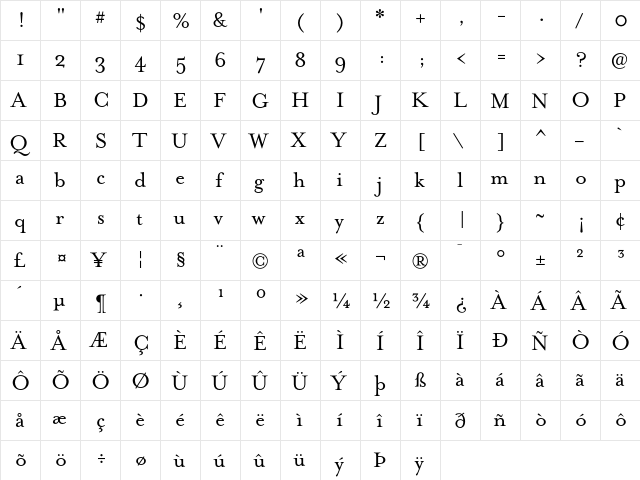
MrsEaves Roman
Design Context for MrsEaves Typeface
MrsEaves is a composed and adaptable typeface that performs quietly and consistently across a wide range of design contexts.
Pro Tip: Pair MrsEaves with a font of contrasting weight or personality to build a more expressive typographic hierarchy.